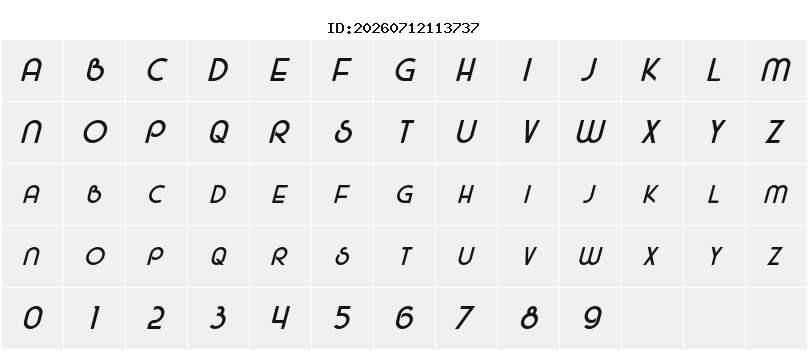
Majel Preview
• Font Name: Majel
• Designer: Neale Davidson
About Majel.ttf
Majel.ttf is a modern, elegant sans-serif font designed for ultimate readability and visual harmony. Perfect for branding, headlines, web design, and print materials.